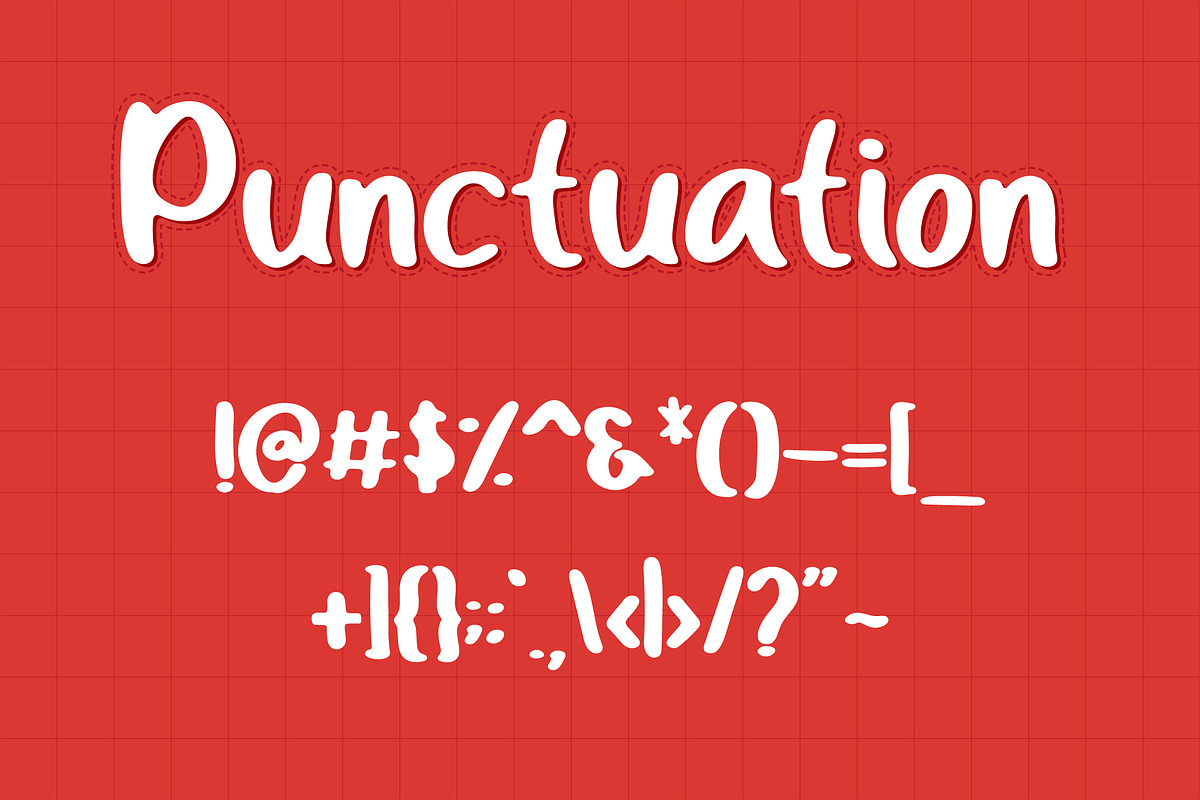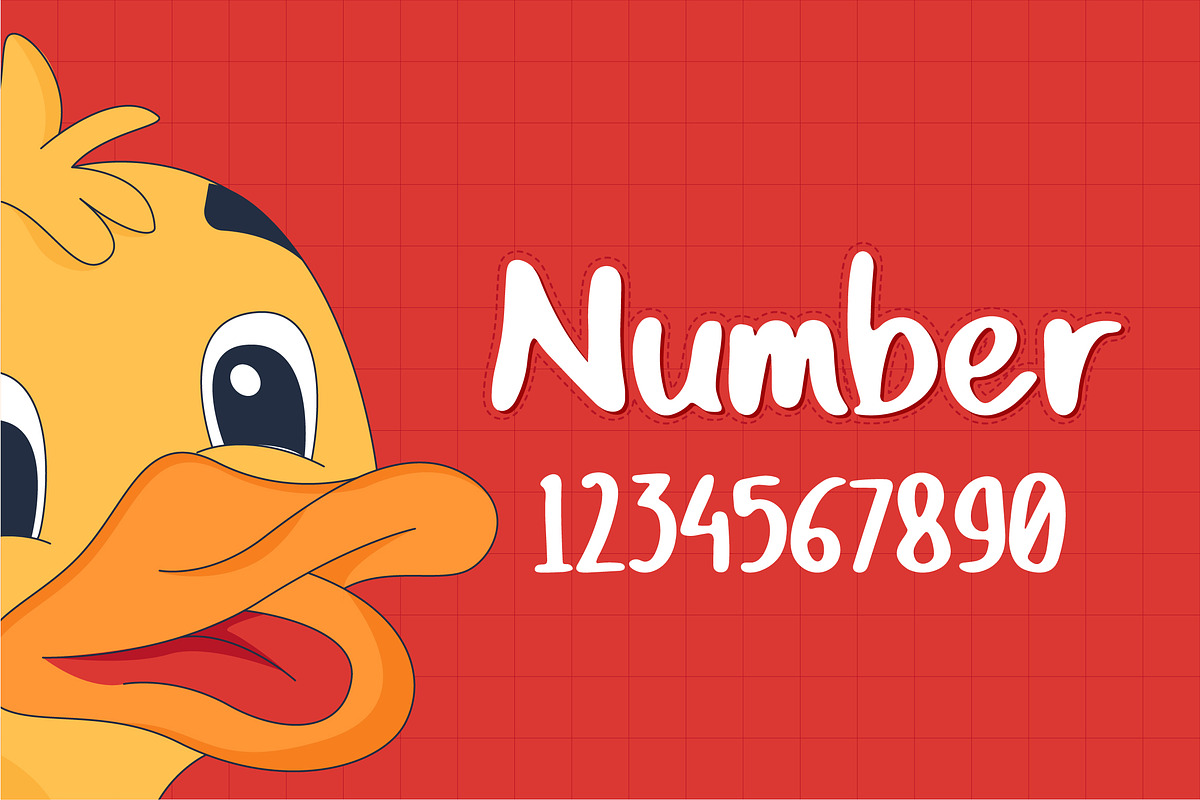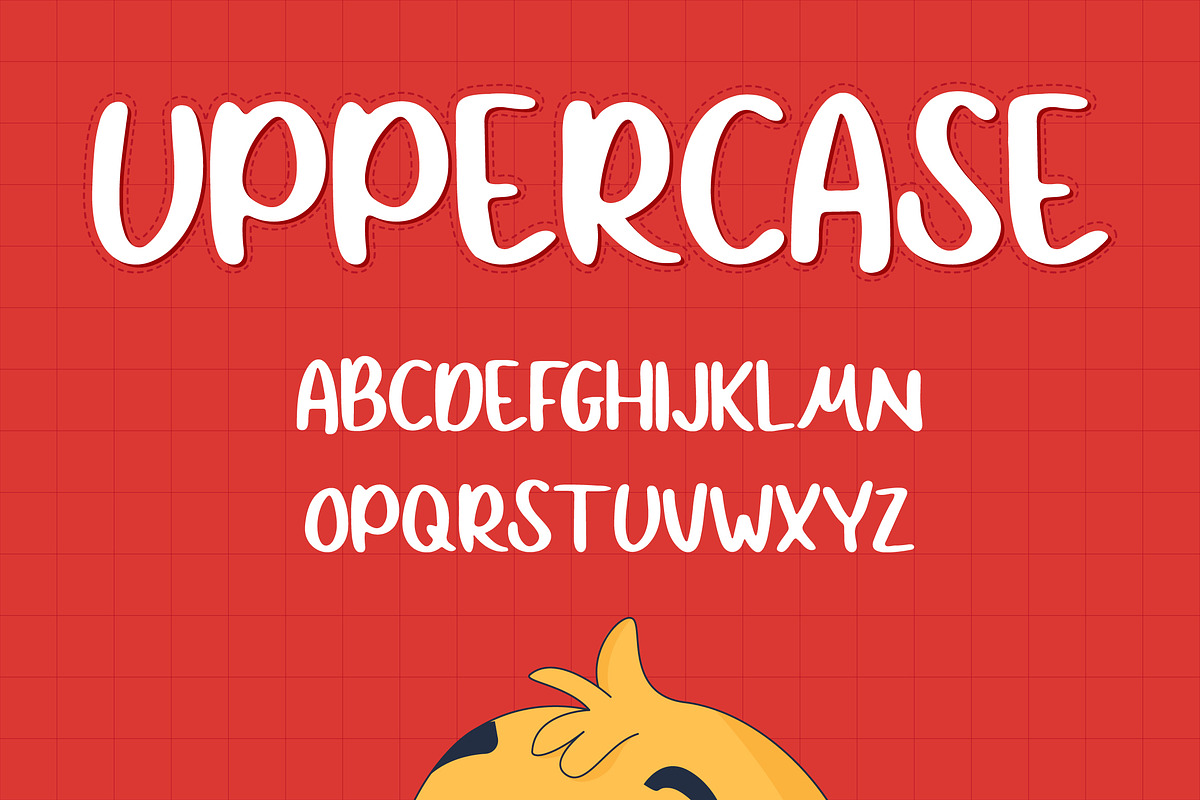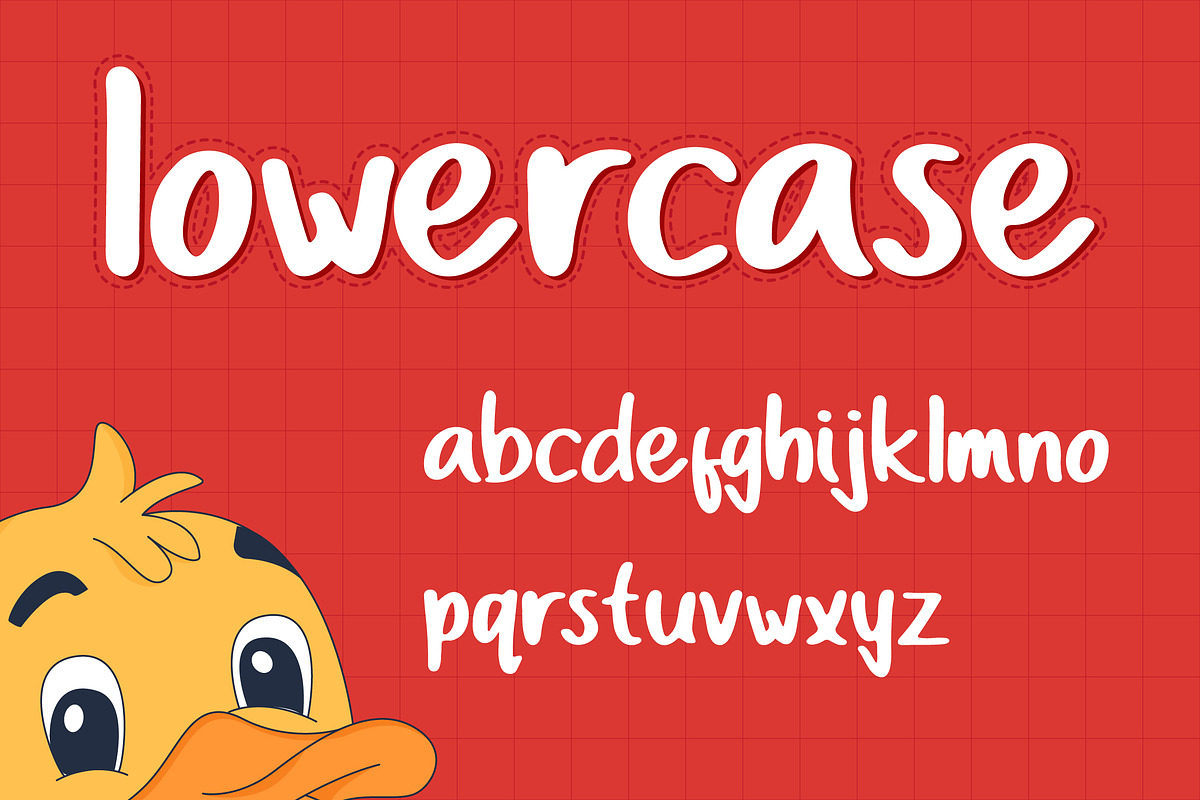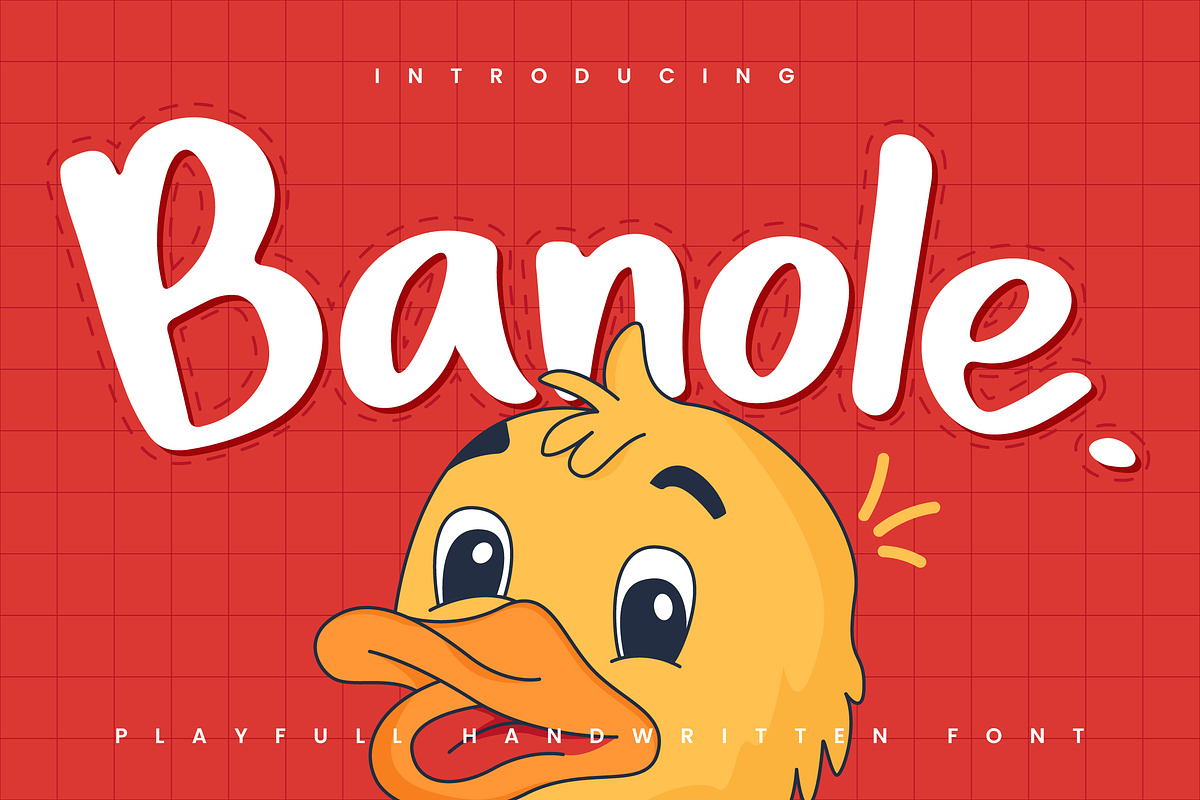
Banole - Playful Handwritten
Banole Playful Display Font is suitable for greeting cards, invitations, posters, baby clothing, books cover, quotes, logos, presentations, headlines, etc. Banole will turn any creative idea into a true piece of art and is ready to make your design look great and fun!